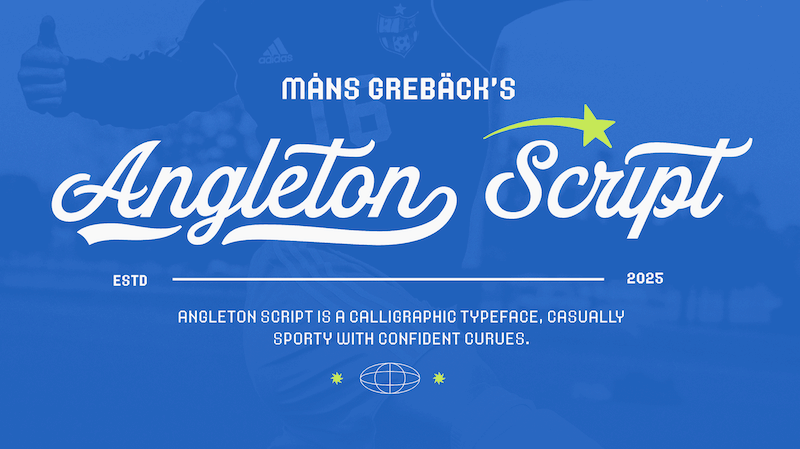
Font name: | Angleton Script |
NOTE: This font is for PERSONAL USE ONLY! To purchase a commercial license, visit: https://www.mansgreback.com/product/angleton-script Angleton Script is a calligraphic typeface, casually sporty with confident curves. It could be used in a team logotype, a classy invitation or a cool poster alike. Use underscore _ to make a swash. Example: Ball_ Use multiple underscores to make longer tails. Example: Champions_______ For questions, please visit https://mansgreback.com/faq |